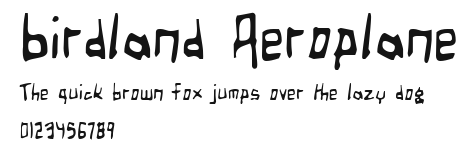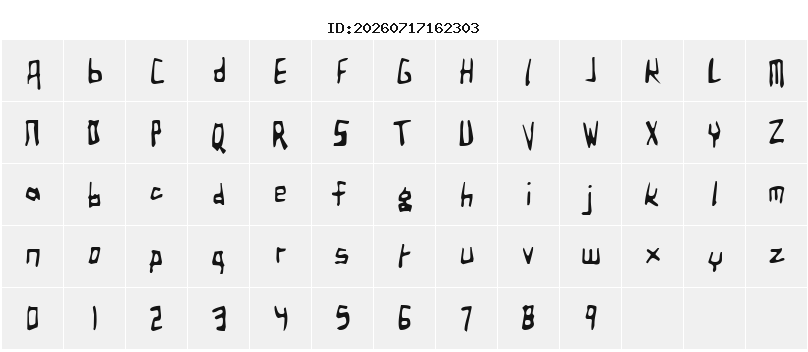
Birdland Aeroplane Preview
• Font Name: Birdland Aeroplane
• Full Font Name: Birdland Aeroplane
About Birdland Aeroplane.ttf
Birdland Aeroplane.ttf is a modern, elegant sans-serif font designed for ultimate readability and visual harmony. Perfect for branding, headlines, web design, and print materials.